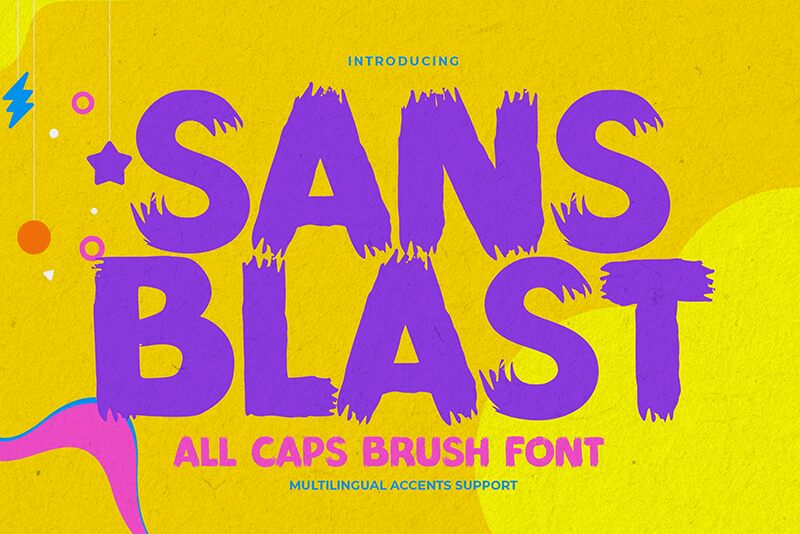
Sansblast
Sansblast, crafted by the imaginative Gassstype, breaks onto the creative scene with its bold brush style and all-caps flair. This font boasts a modern edge with dramatic movement that captures the essence of quick, casual strokes. Unleash Sansblast's full potential in a myriad of design projects where authenticity and uniqueness are paramount.
Ideal for an array of applications – from eye-catching labels and posters to branding and packaging – Sansblast excels in delivering a textured, natural look that invites a second glance. Its suitability extends to personalizing greeting cards, enhancing websites, adorning photos as overlays, or adding artistic touches to signs and scrapbooks. Embrace the dynamic spirit of Sansblast for projects that demand a touch of raw elegance and contemporary charm.